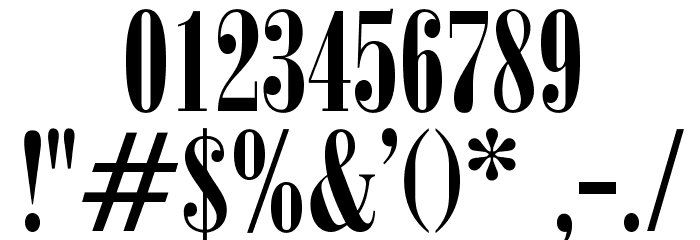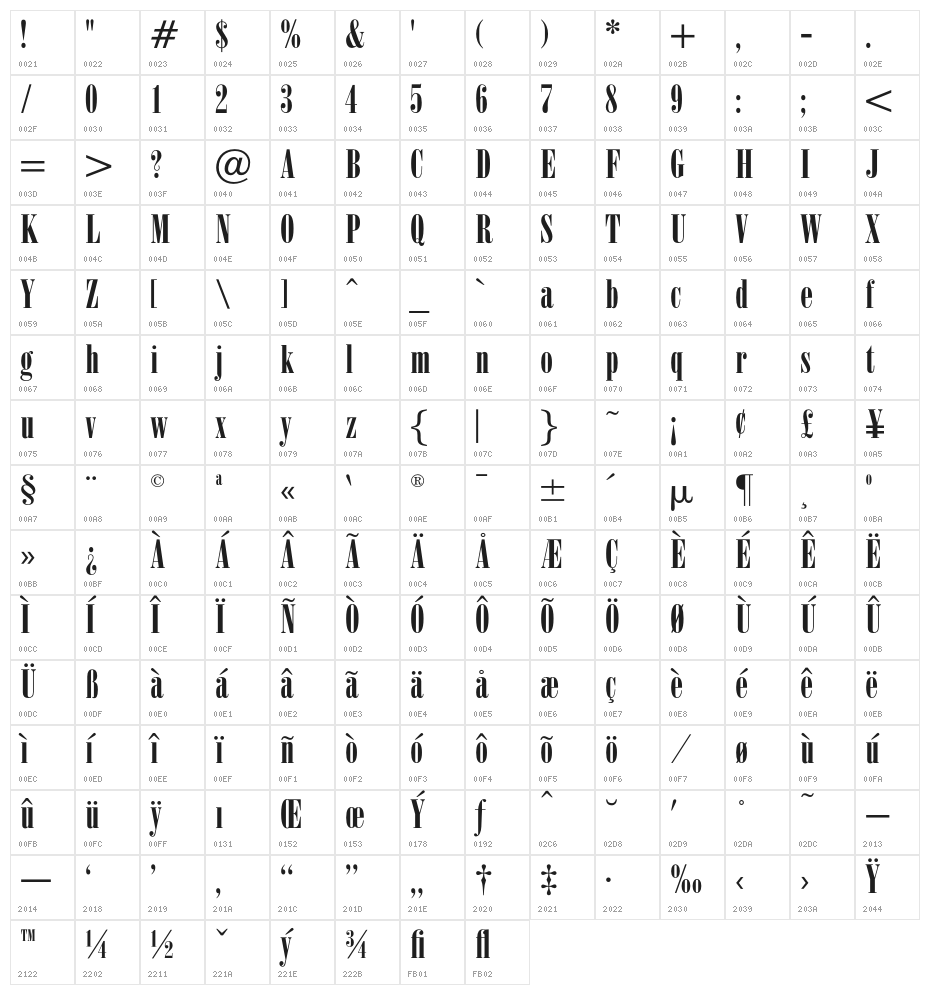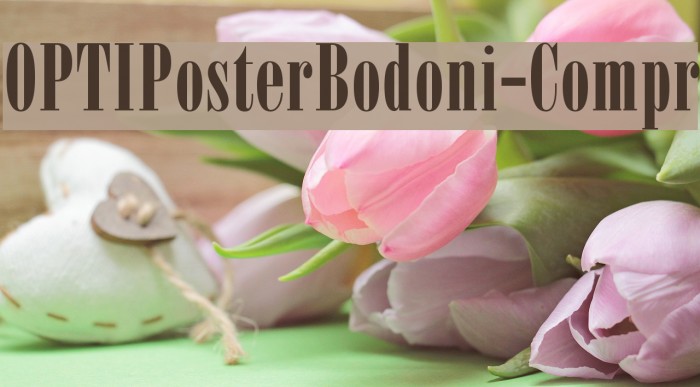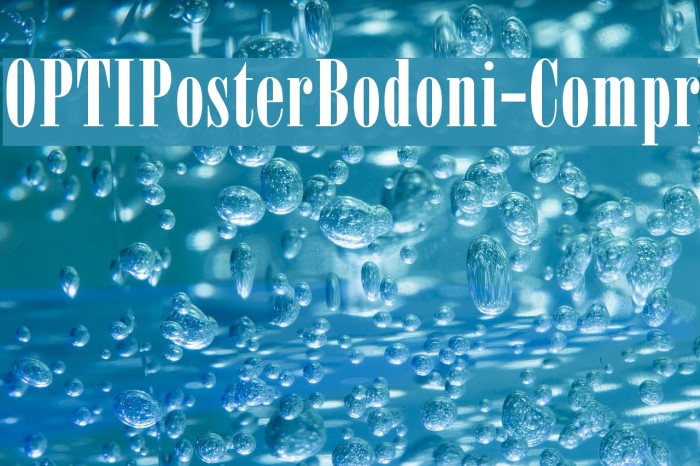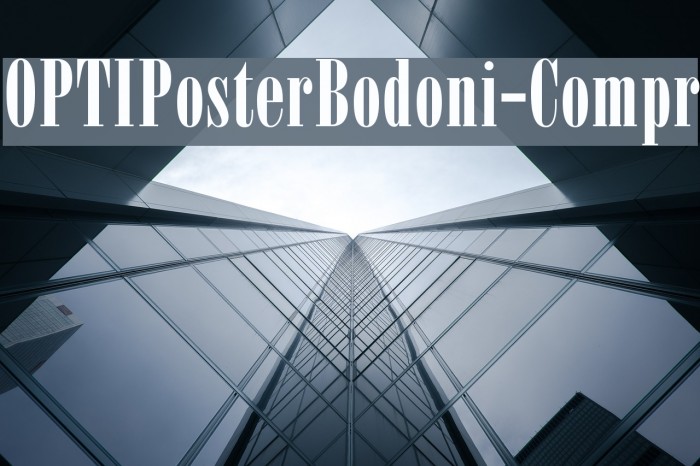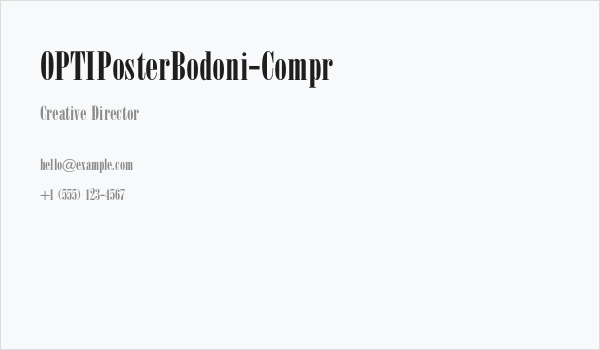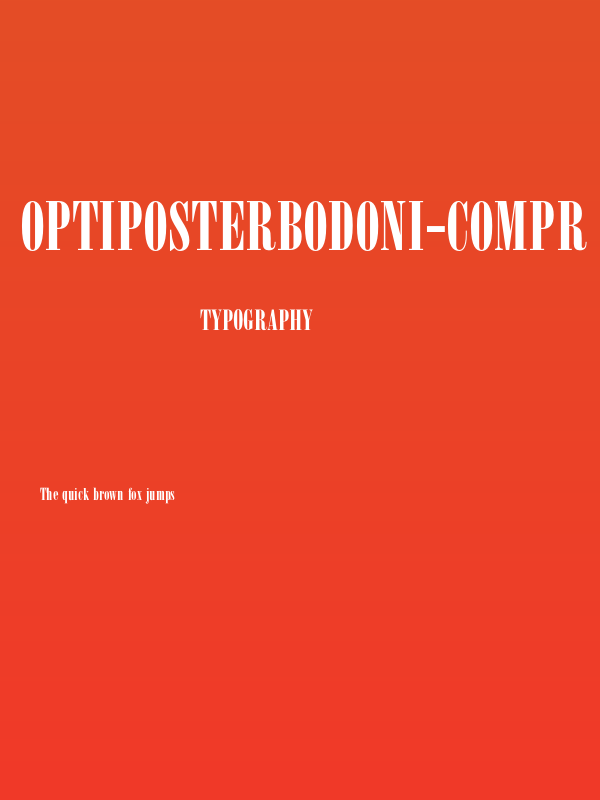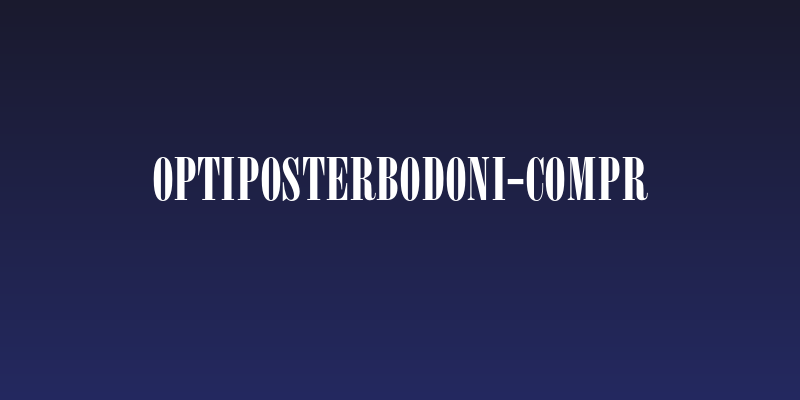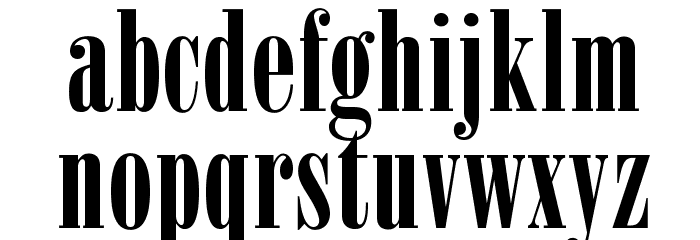
OPTIPosterBodoni-Compr Font
This font exhibits a classic and elegant style with high contrast between thick and thin strokes, characteristic of traditional serif typefaces. The letters are tall and narrow, giving a compressed appearance that enhances its sophisticated look. The serifs are pronounced and sharp, adding to the font's refined aesthetic. The uppercase letters are bold and commanding, while the lowercase letters maintain a graceful flow. The numerals are consistent with the overall style, featuring the same high contrast and elegant curves. Special characters are designed with the same attention to detail, ensuring a cohesive appearance across all glyphs.
A classic serif font with high contrast and a compressed, elegant style.
• Proposed Projects: Ideal for luxury branding, editorial design, fashion magazines, and elegant invitations.